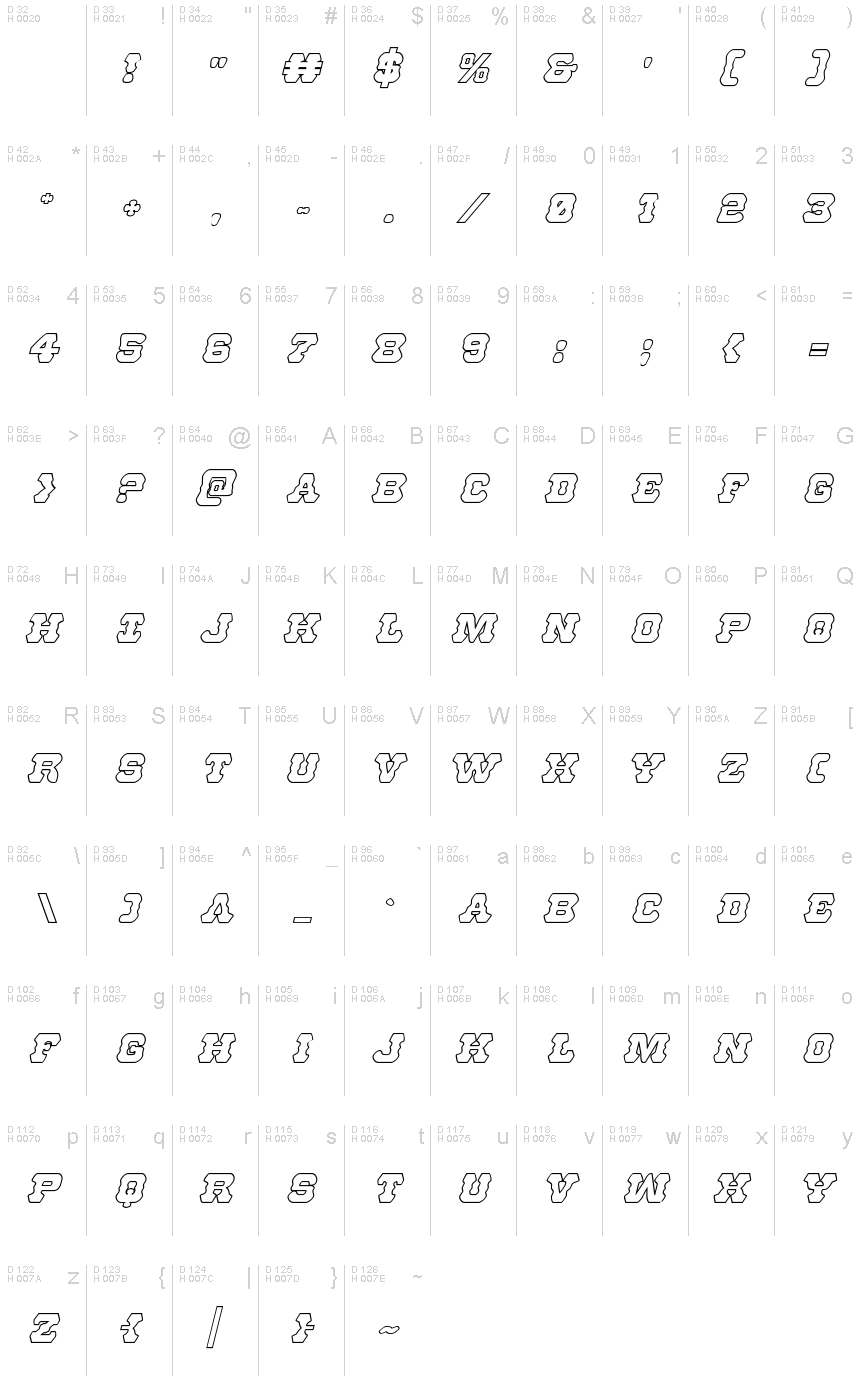
U.S. Marshal Shadow Italic, created by Iconian Fonts in 2024, is a free outlined Western display font with a brisk forward slant. Broad capitals combine rounded shoulders with sharp, inward-cut details. A second contour gives the lettering a carved, dimensional edge.
Sports branding is its strongest use, especially for merchandise and event posters with sturdy, fast-moving shapes. The frontier styling suits rodeo promotions and Western entertainment, where the outlined forms can echo painted signs and embroidered patches.
U.S. Marshal Shadow Italic
Daniel Zadorozny